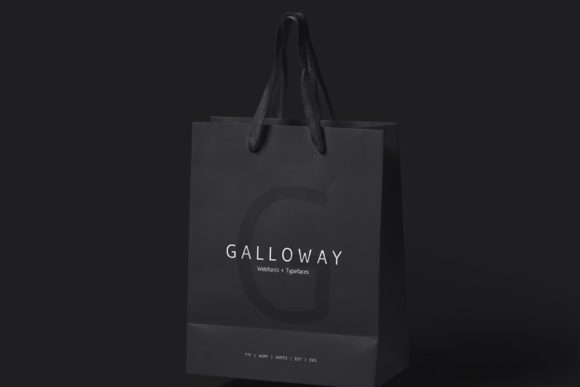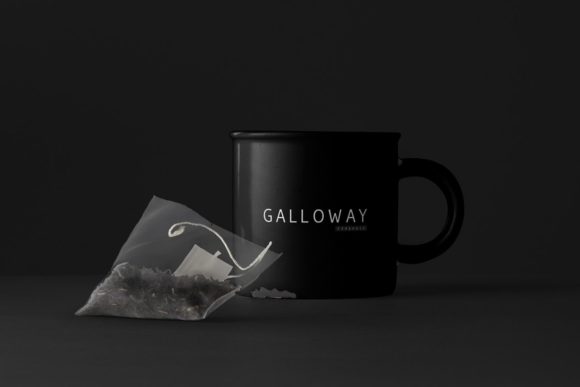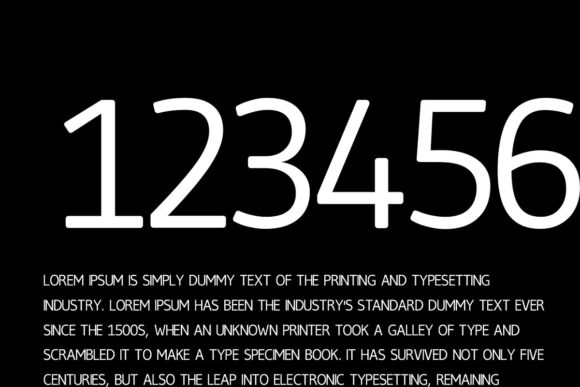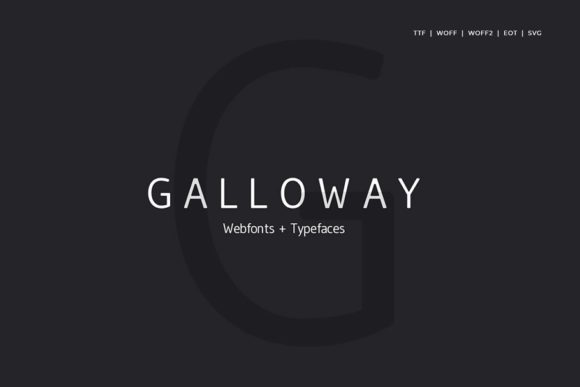
Galloway Font: The Ultimate Sans Serif Font for Designers and Crafters
In the world of typography, fonts play a crucial role in making or breaking a design. A well-chosen font can elevate your project, making it more visually appealing and engaging. If you’re a designer or crafter looking for a versatile and stylish font, look no further than Galloway. In this article, we’ll dive into the world of Galloway Font, exploring its features, benefits, and uses.
What is Galloway Font?
Galloway is a simple and thin lettered sans serif font that has been making waves in the design community. Its neat and straightforward style makes it an excellent choice for a wide variety of designs, from digital projects to print materials. The font’s clean lines, subtle curves, and balanced proportions create a visually appealing aesthetic that’s both modern and timeless.
Key Features of Galloway Font
- Simple and Thin Lettering: Galloway’s lettering is characterized by its simplicity and thin strokes, making it perfect for designs that require a clean and minimalist look.
- Sans Serif: As a sans serif font, Galloway lacks decorative flourishes, giving it a modern and streamlined appearance.
- Versatile: Galloway’s neutral style makes it suitable for a wide range of designs, from elegant and sophisticated to playful and creative.
- Easy to Read: The font’s clear and legible design ensures that your text is easy to read, even at small sizes.
Benefits of Using Galloway Font
So, why should you choose Galloway Font for your next project? Here are just a few benefits of using this versatile font:
- Improved Readability: Galloway’s clear and simple design makes it easy for readers to focus on your message.
- Enhanced Visual Appeal: The font’s clean lines and balanced proportions create a visually appealing aesthetic that elevates your design.
- Flexibility: Galloway’s versatility makes it suitable for a wide range of designs, from digital projects to print materials.
- Time-Saving: With Galloway, you can create professional-looking designs quickly and easily, saving you time and effort.
Use Cases for Galloway Font
Galloway’s versatility makes it suitable for a wide range of designs, including:
- Digital Projects: Use Galloway for website designs, social media graphics, and digital marketing materials.
- Print Materials: Galloway is perfect for print materials like brochures, flyers, and business cards.
- Branding and Identity: Use Galloway to create a consistent brand identity across all your marketing materials.
- Crafting and DIY Projects: Galloway is a great choice for crafters and DIY enthusiasts who want to add a personal touch to their projects.
Tips for Using Galloway Font
Here are a few tips for getting the most out of Galloway Font:
- Experiment with Font Sizes: Galloway looks great at a range of font sizes, from small and delicate to large and bold.
- Pair with Other Fonts: Try pairing Galloway with other fonts to create a unique and visually appealing aesthetic.
- Use Color Effectively: Use color to add contrast and visual interest to your design.
| Font Name | Galloway Font |
| Author | Webhance |
In conclusion, Galloway Font is a versatile and stylish sans serif font that’s perfect for designers and crafters. Its simple and thin lettering, clean lines, and balanced proportions make it suitable for a wide range of designs. With its improved readability, enhanced visual appeal, and flexibility, Galloway is sure to become your go-to font for all your design needs.